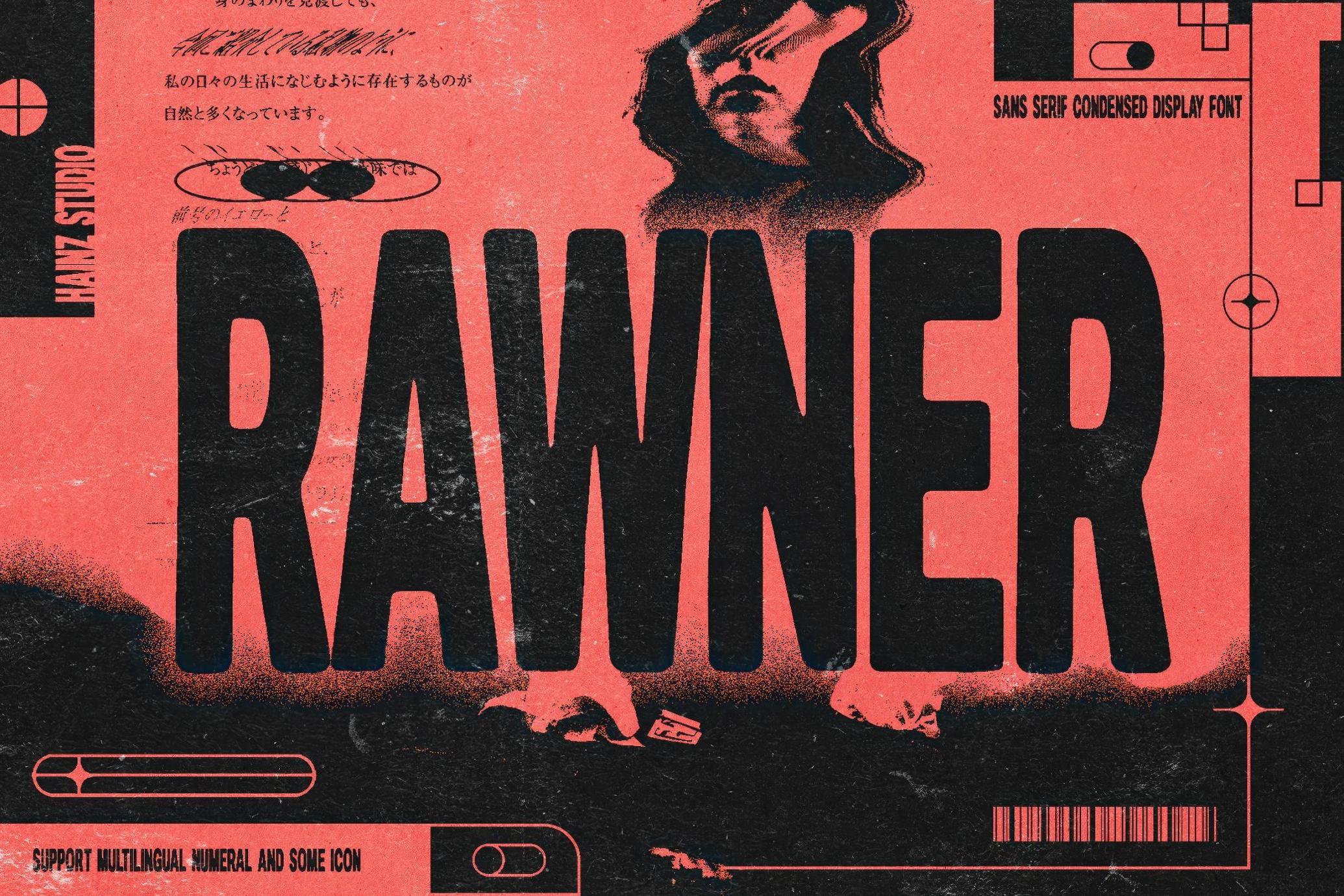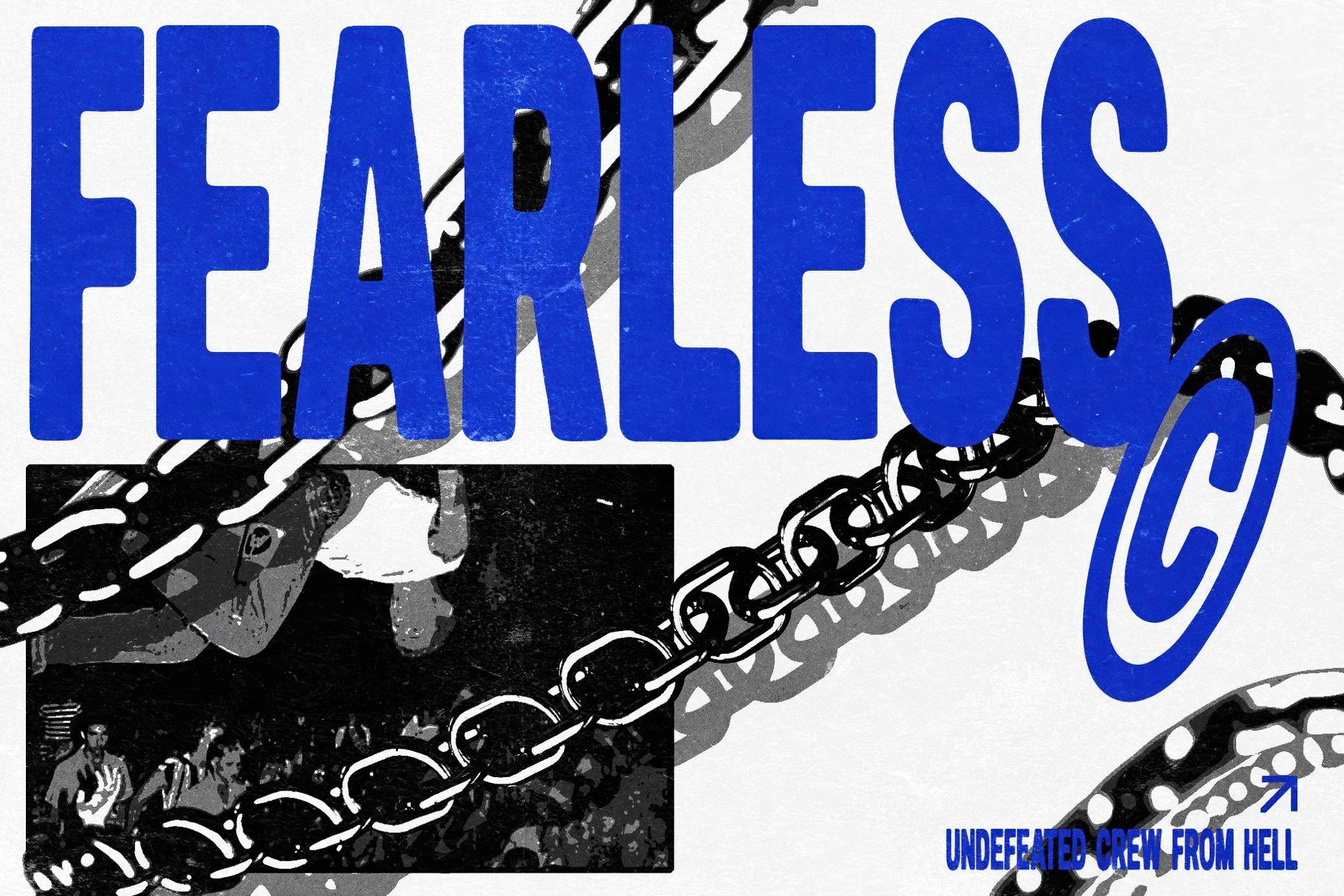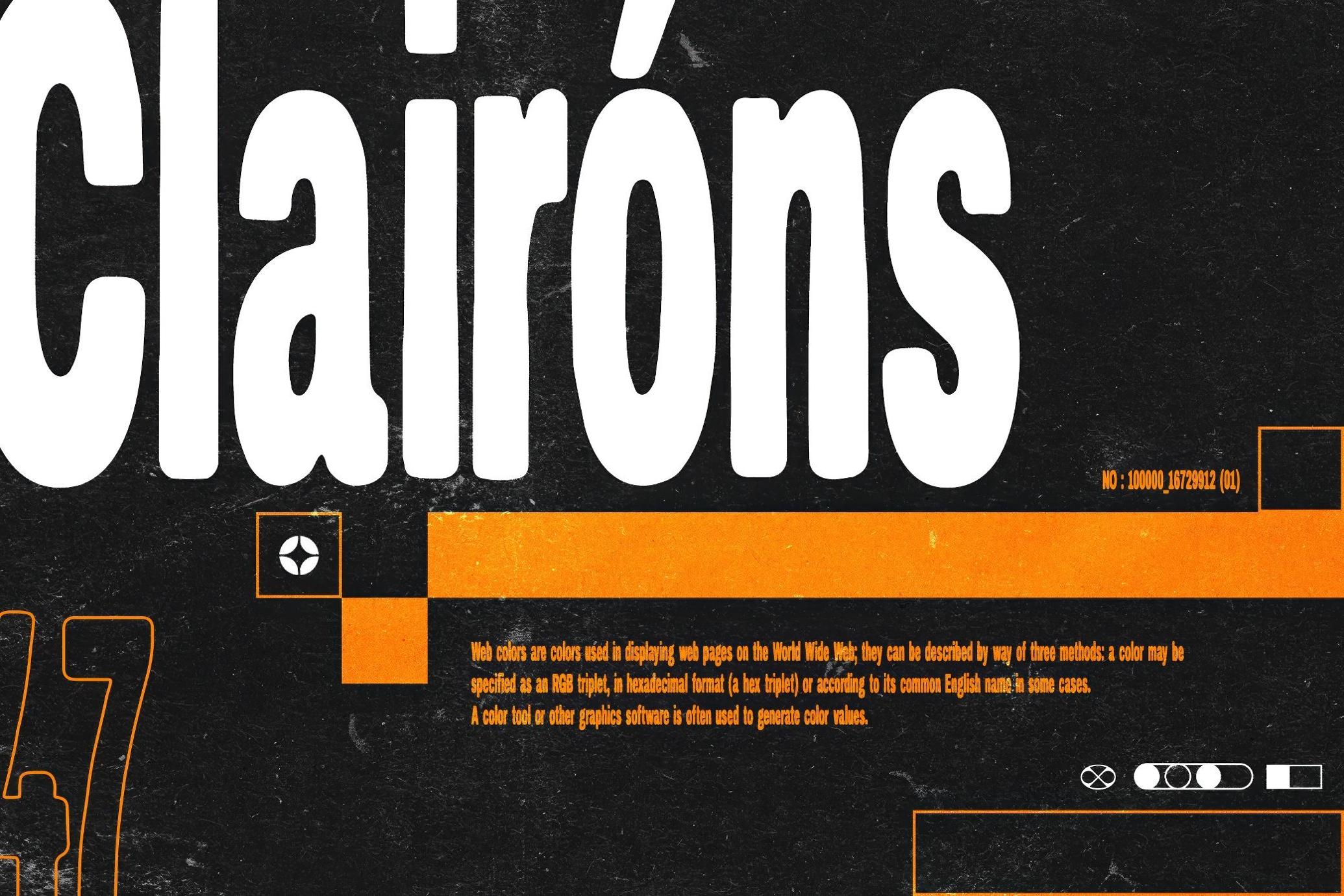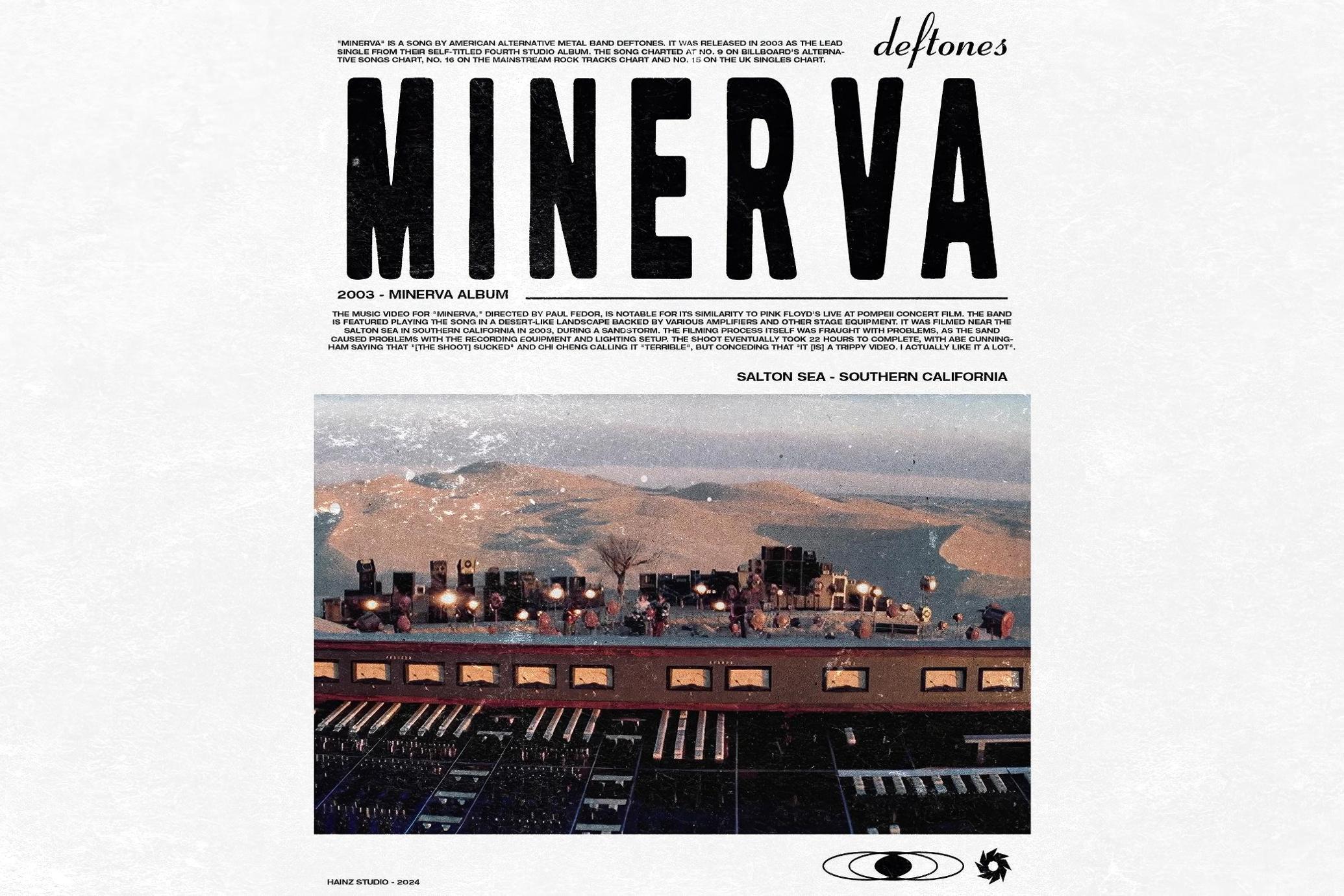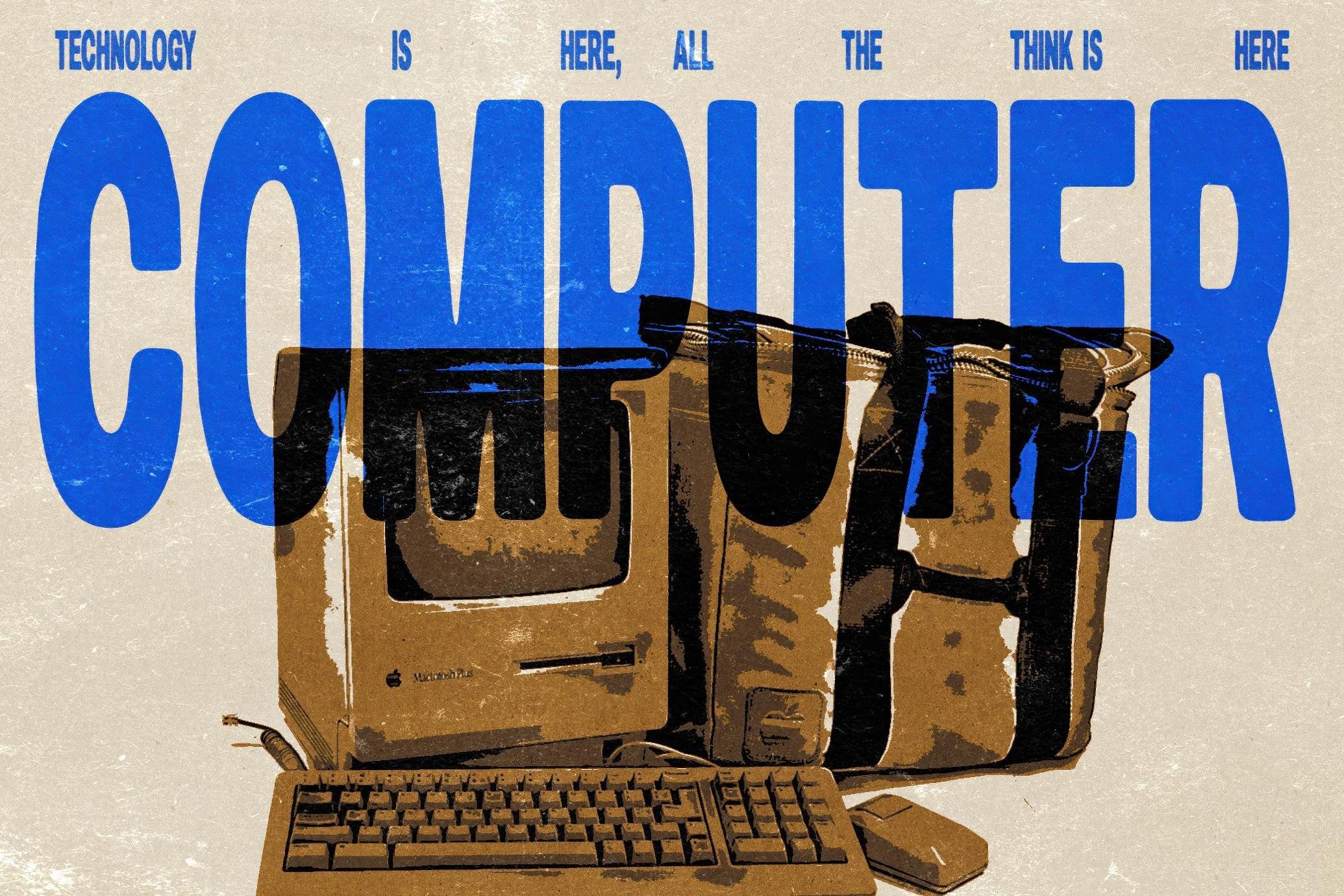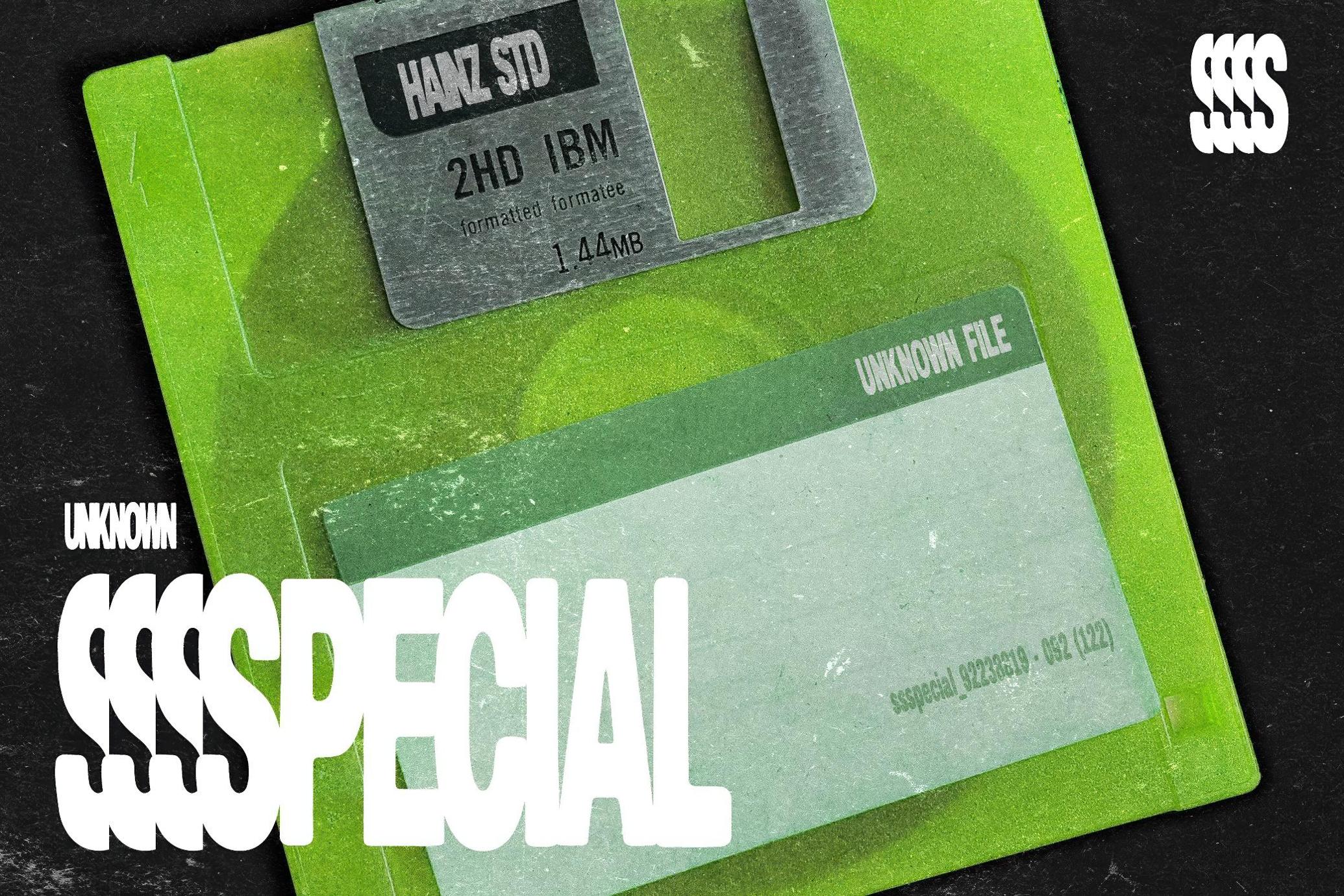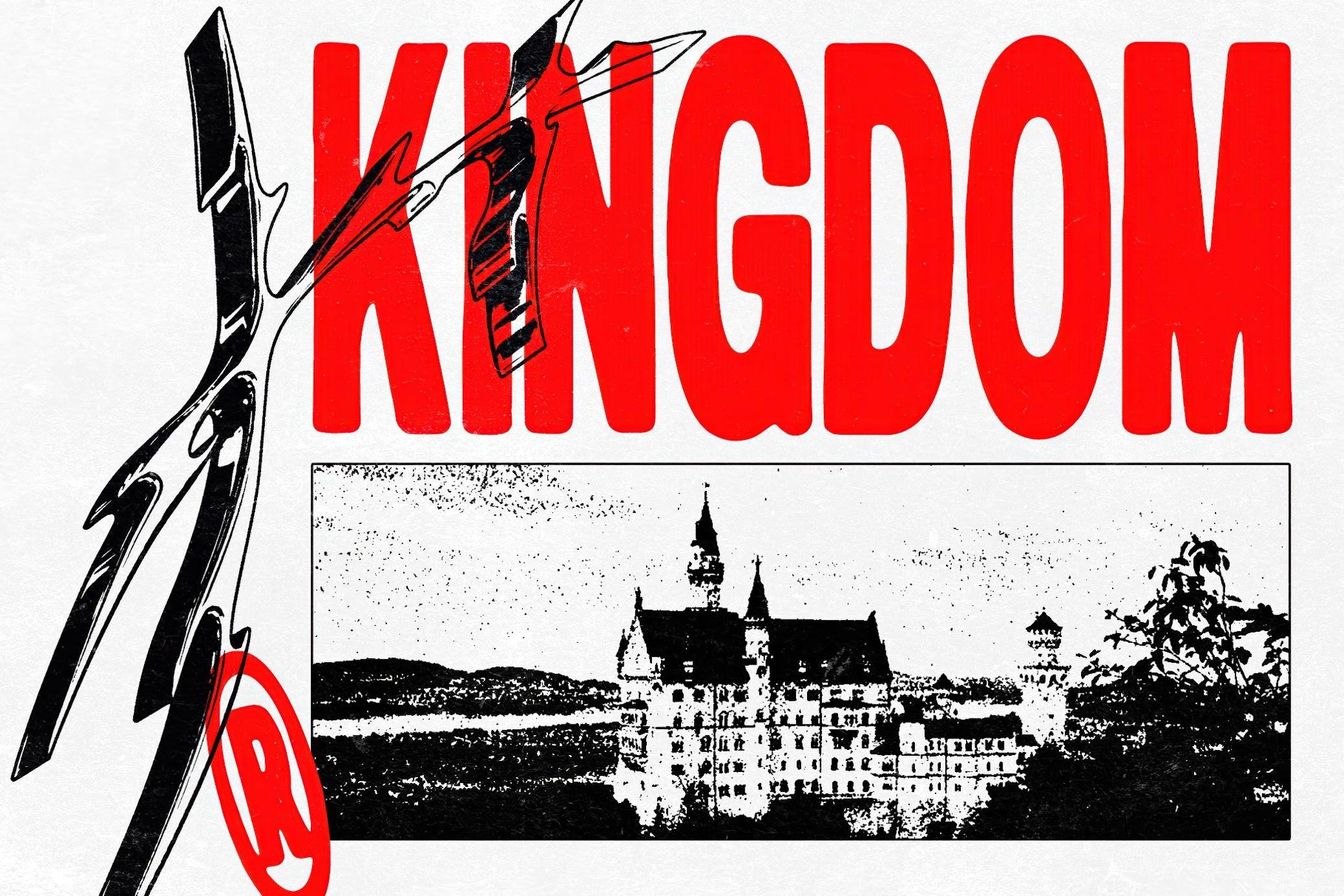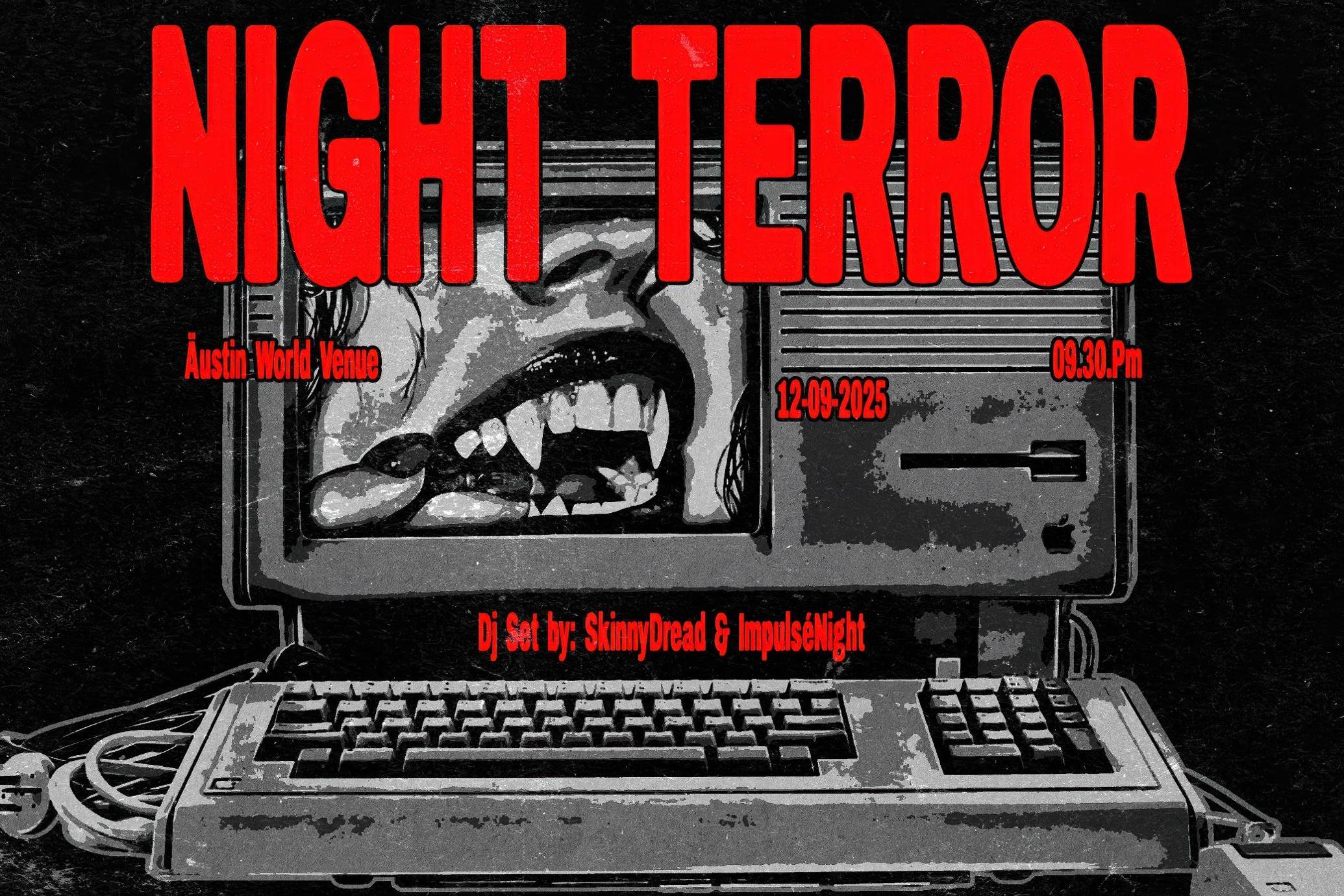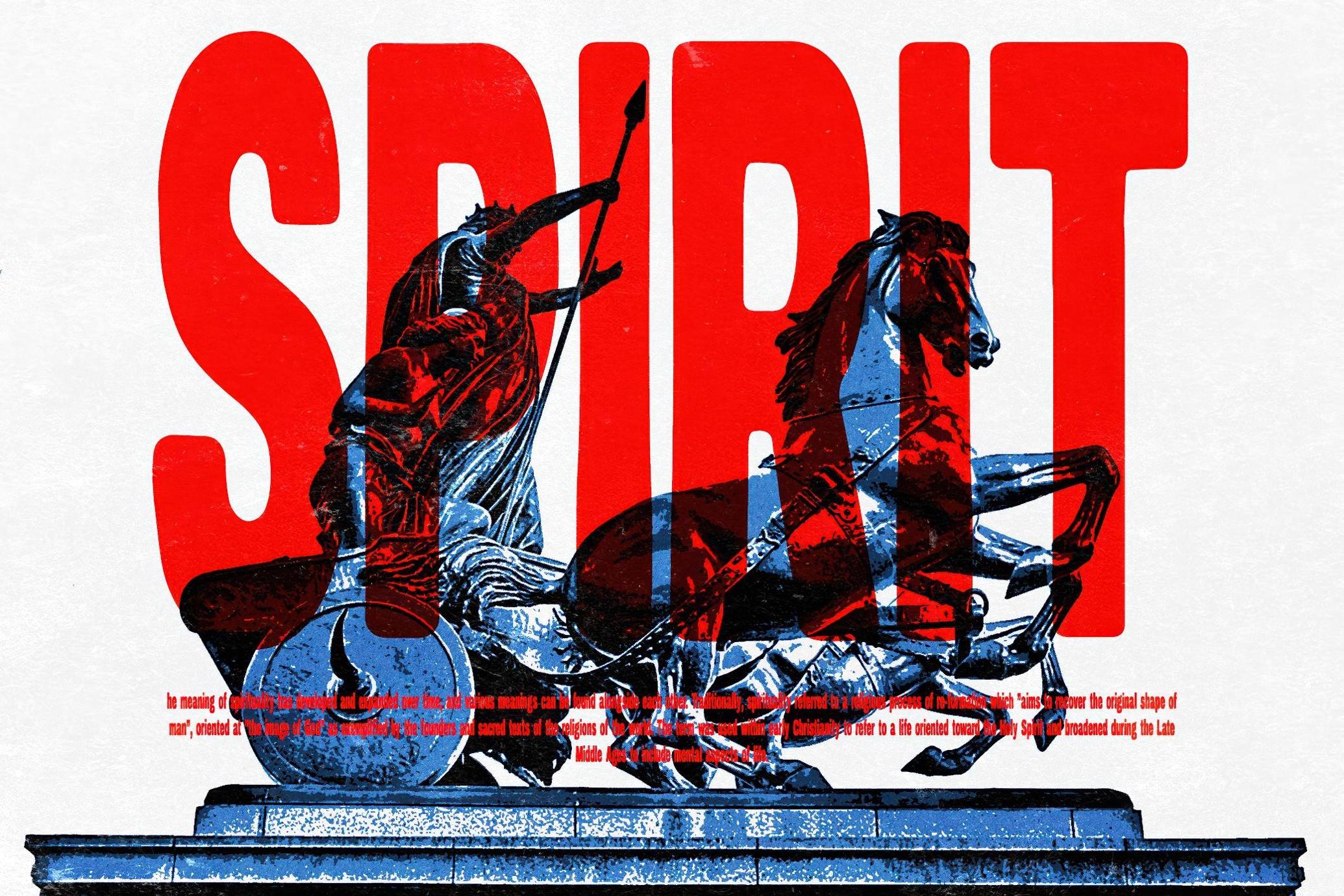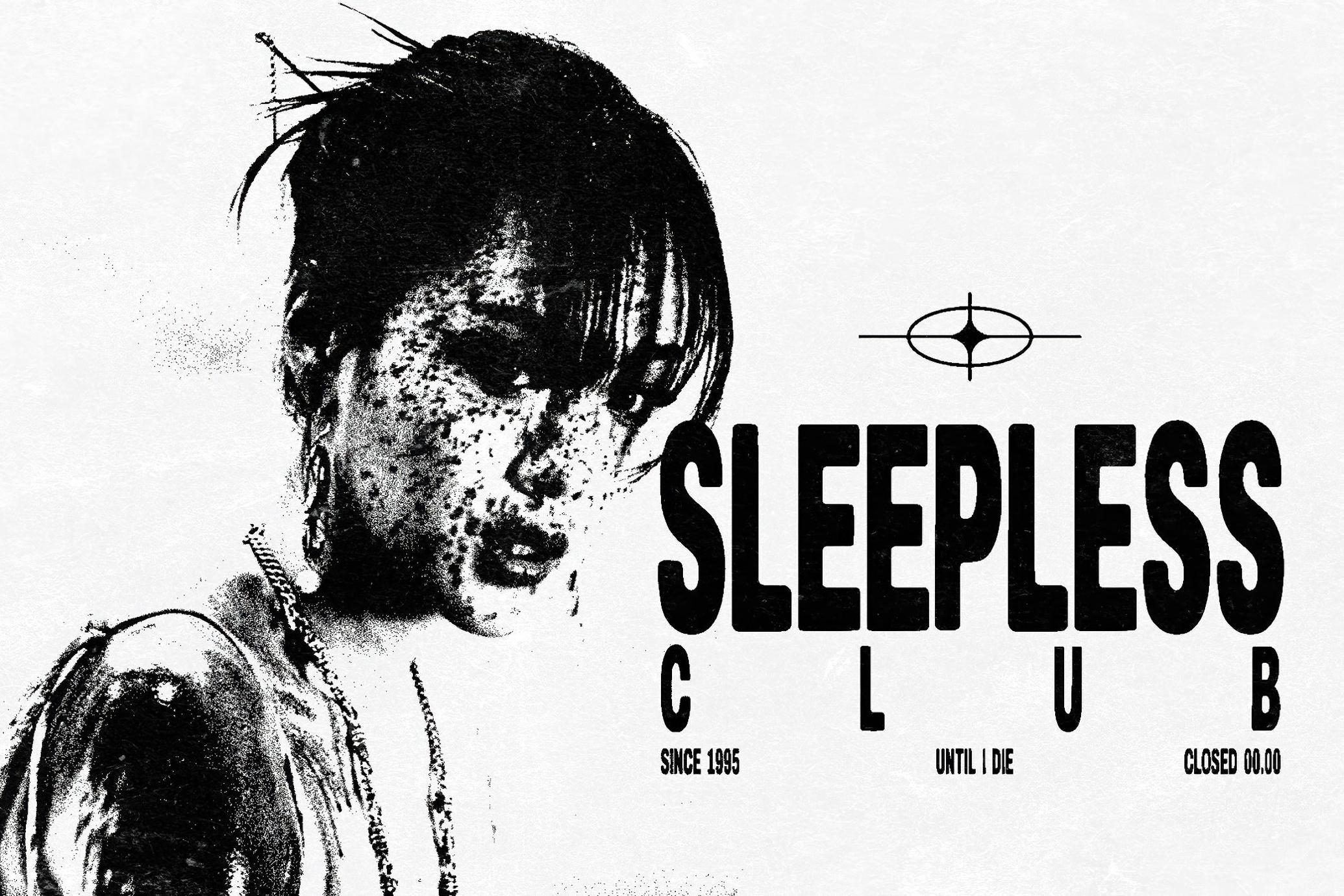
Rawner — Condensed Display Font
Rawner
The Rawner font is a condensed display with blocky geometry and tight spacing. Its industrial build and slightly brutalist structure give it a sense of controlled tension — it looks like it was built in a warehouse with a welding torch and a grid ruler. Despite the hard edges, it stays legible even at smaller sizes. Comes in upper and lower case with numerals, multilingual support and essential punctuation.
Rawner works best when you need to make a point without shouting: poster headlines, editorial subheads, album covers, sports branding, event flyers, signage, and anything in the fashion or music realm. It also plays well in typographic lockups or layered with gritty textures, halftones, or black-and-white photography.